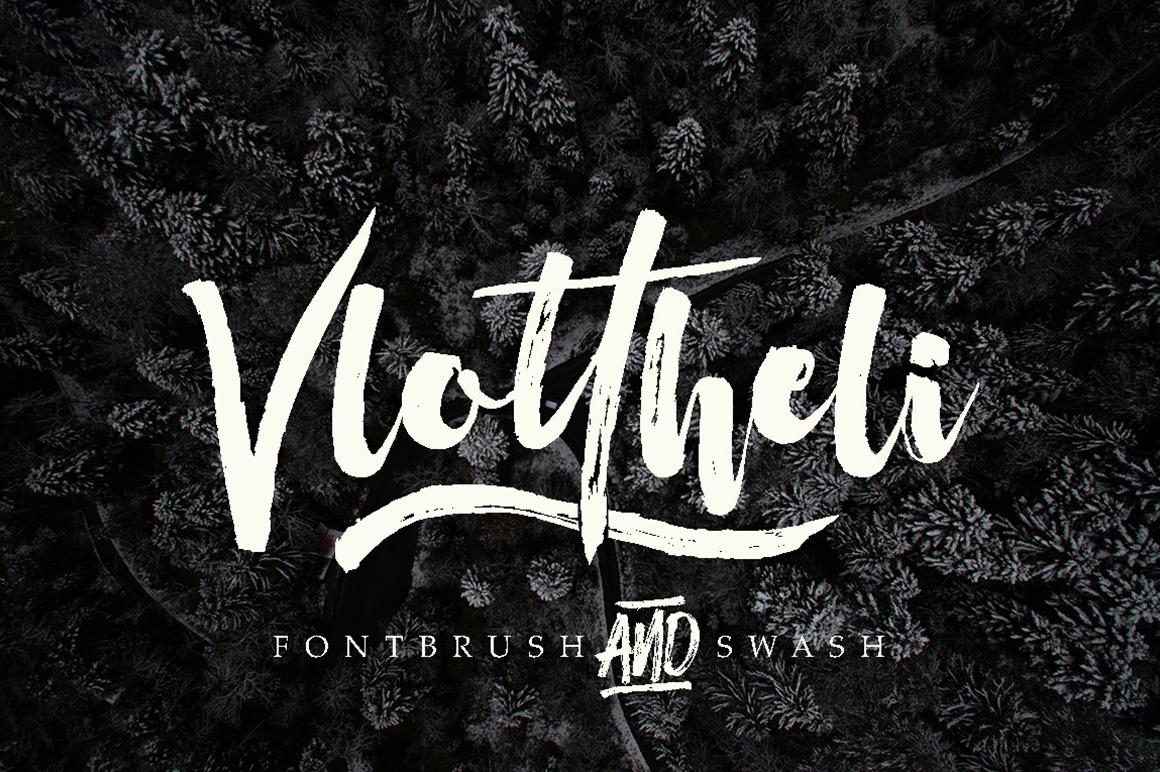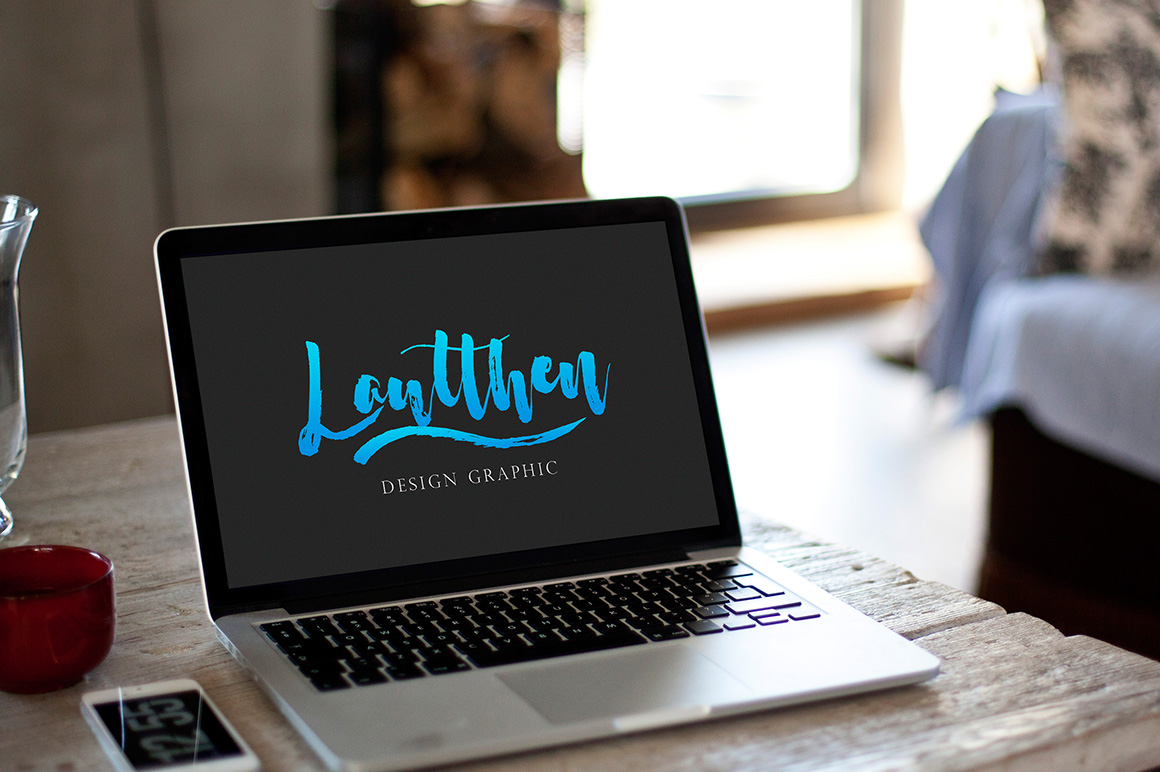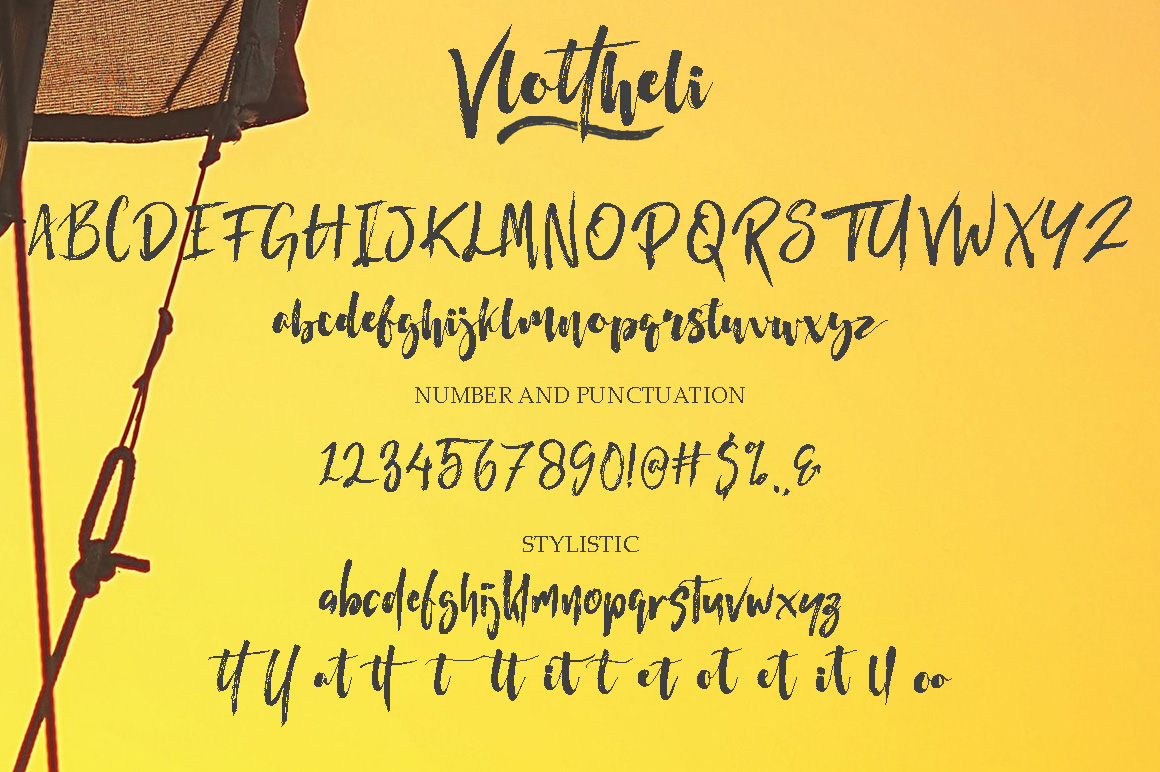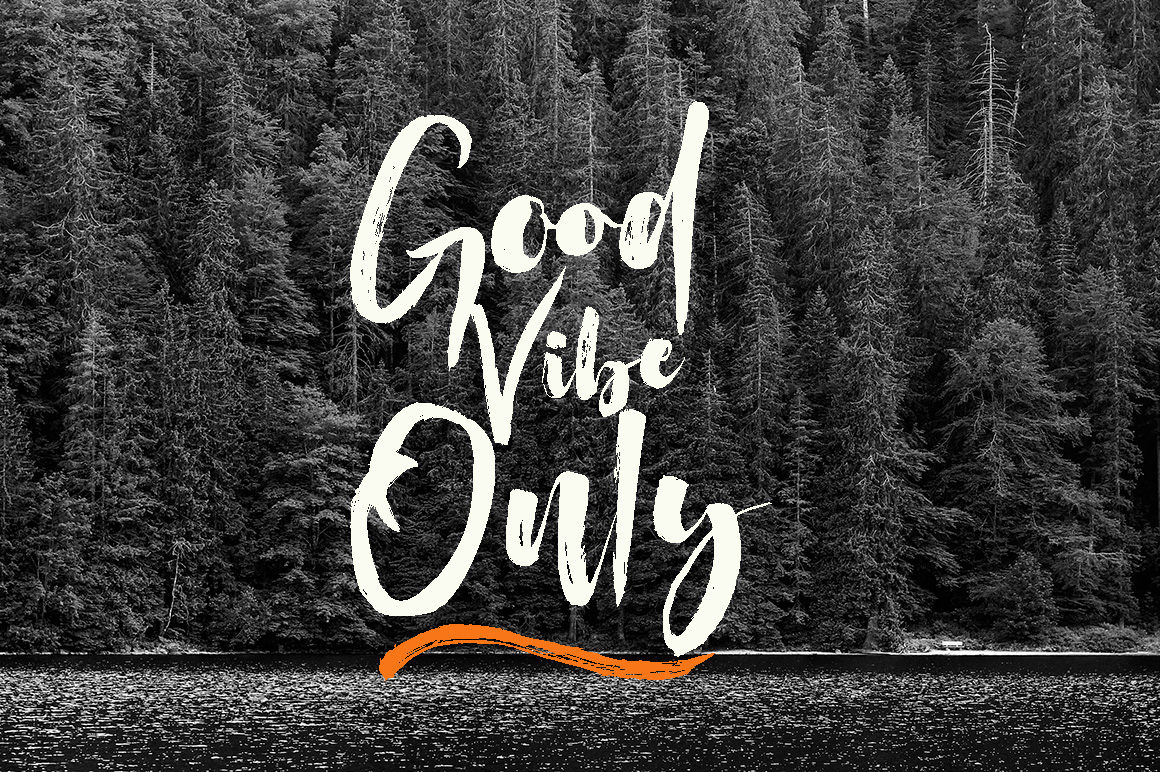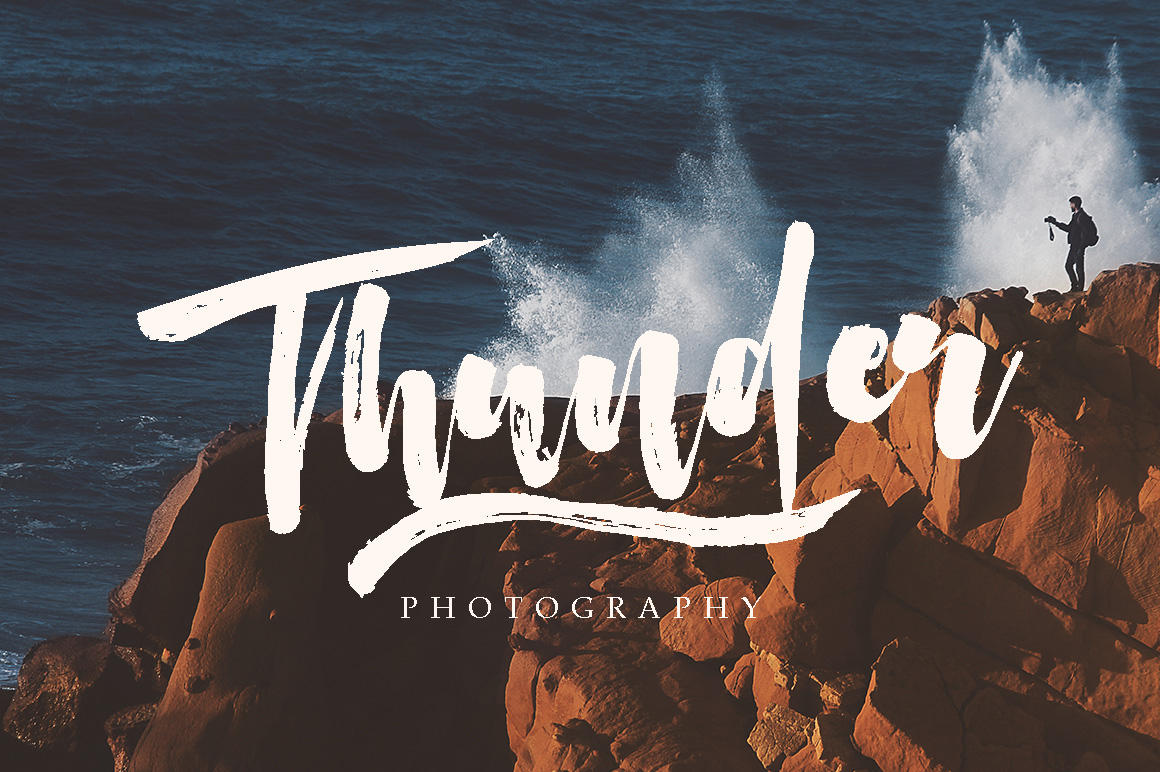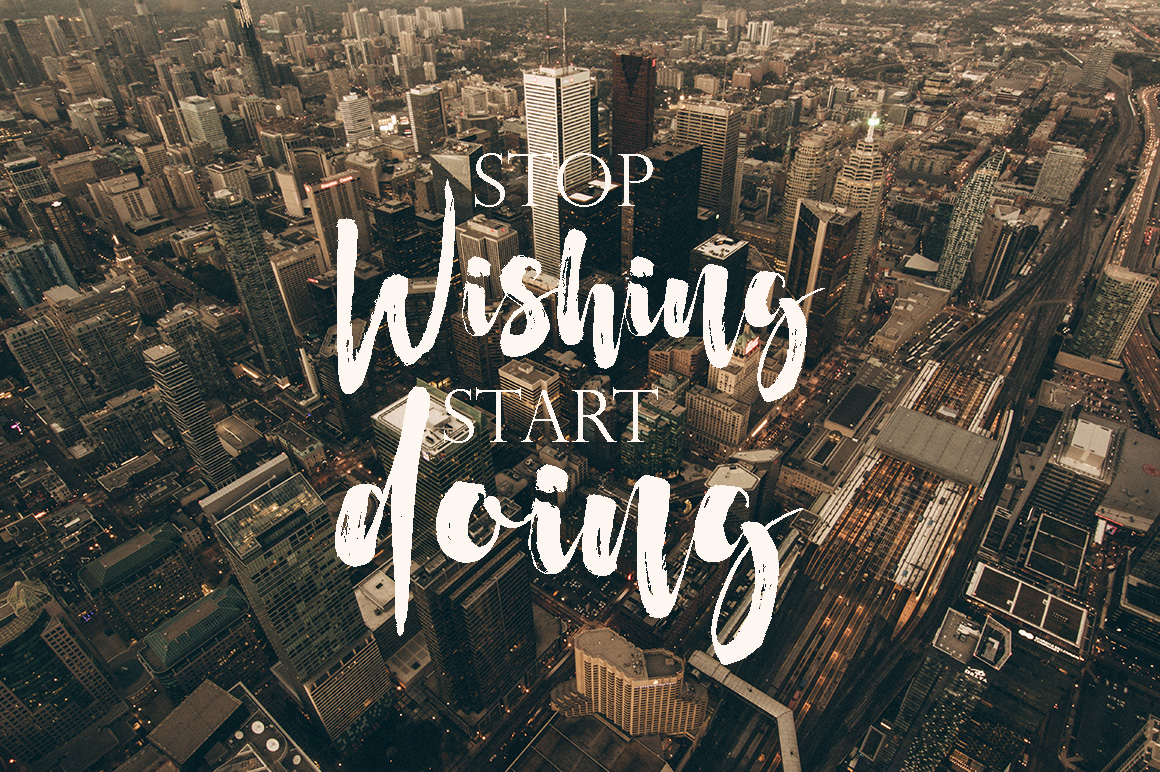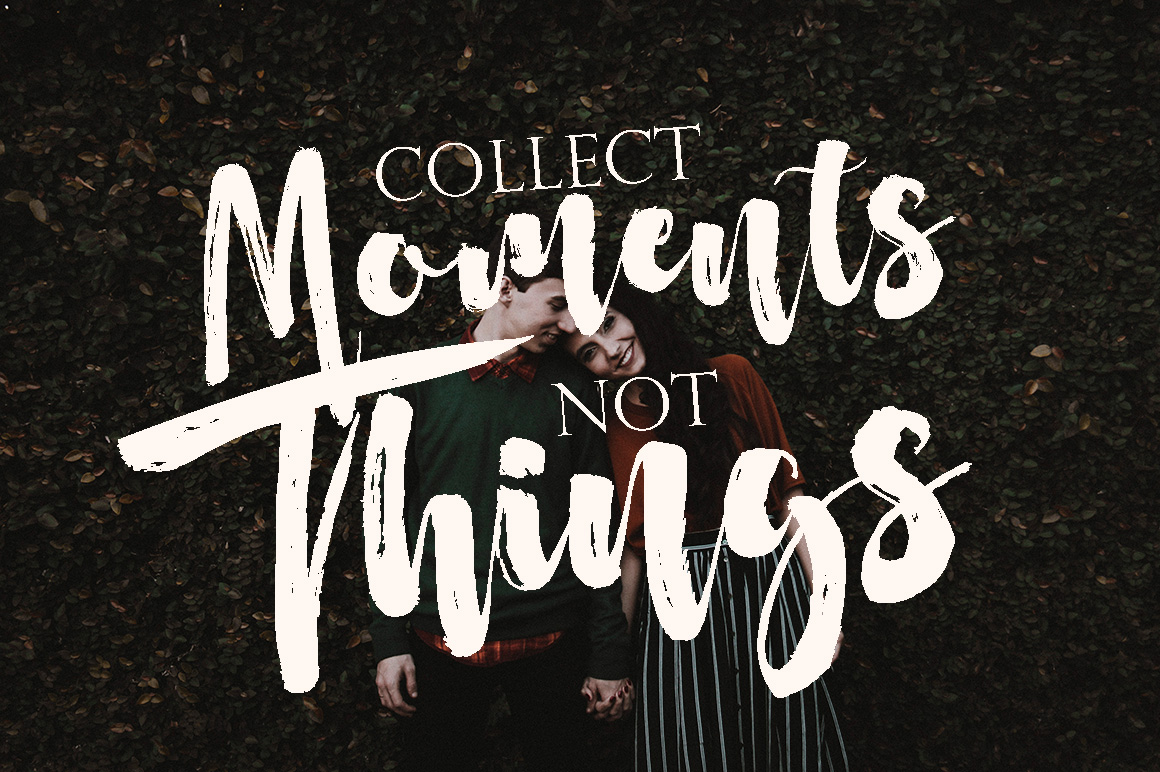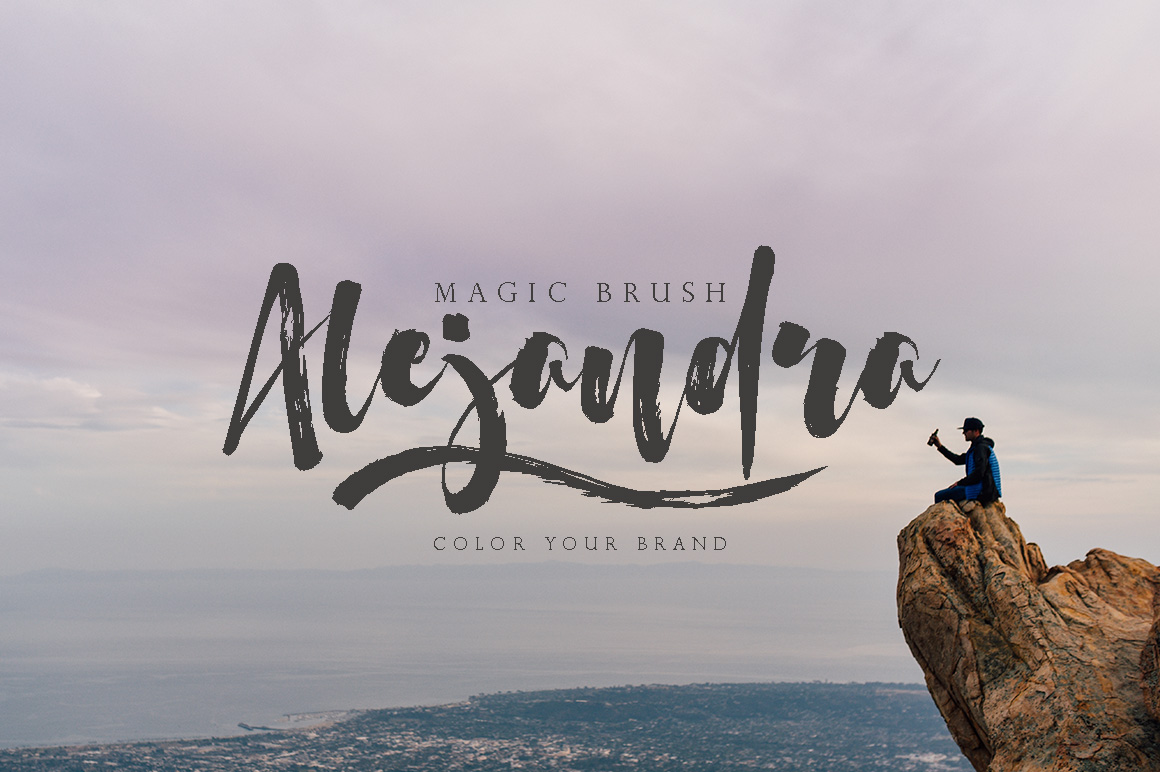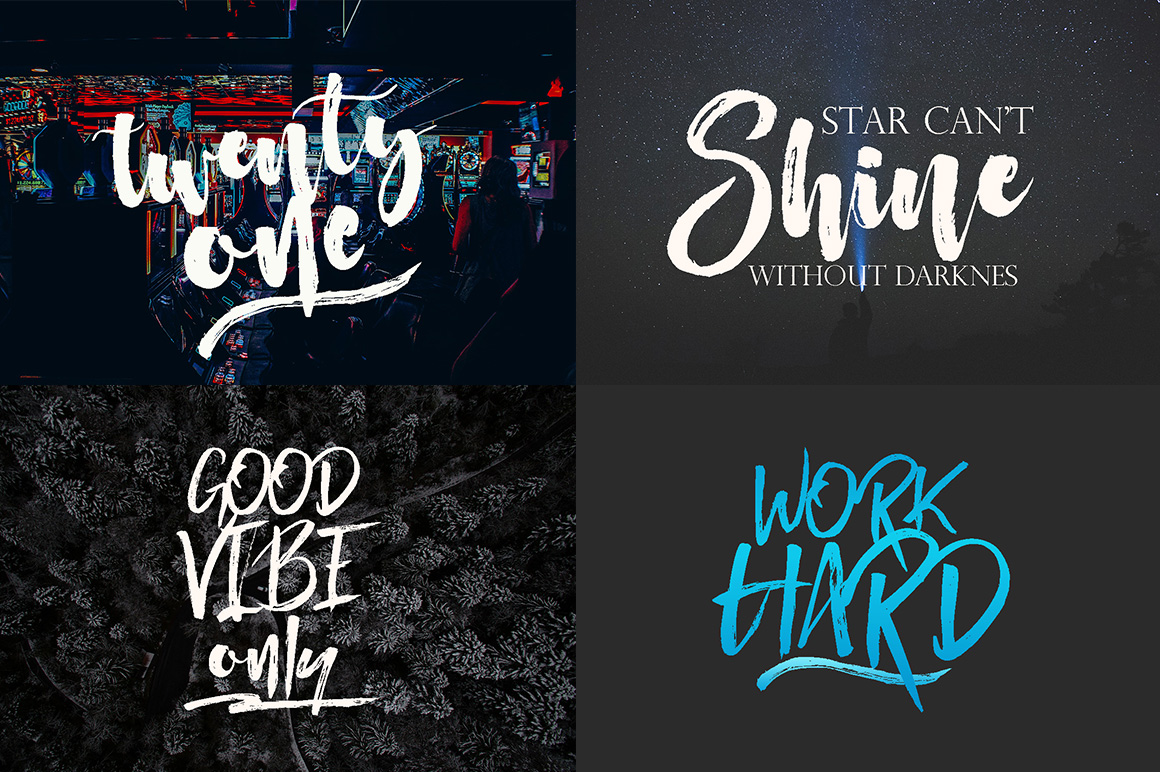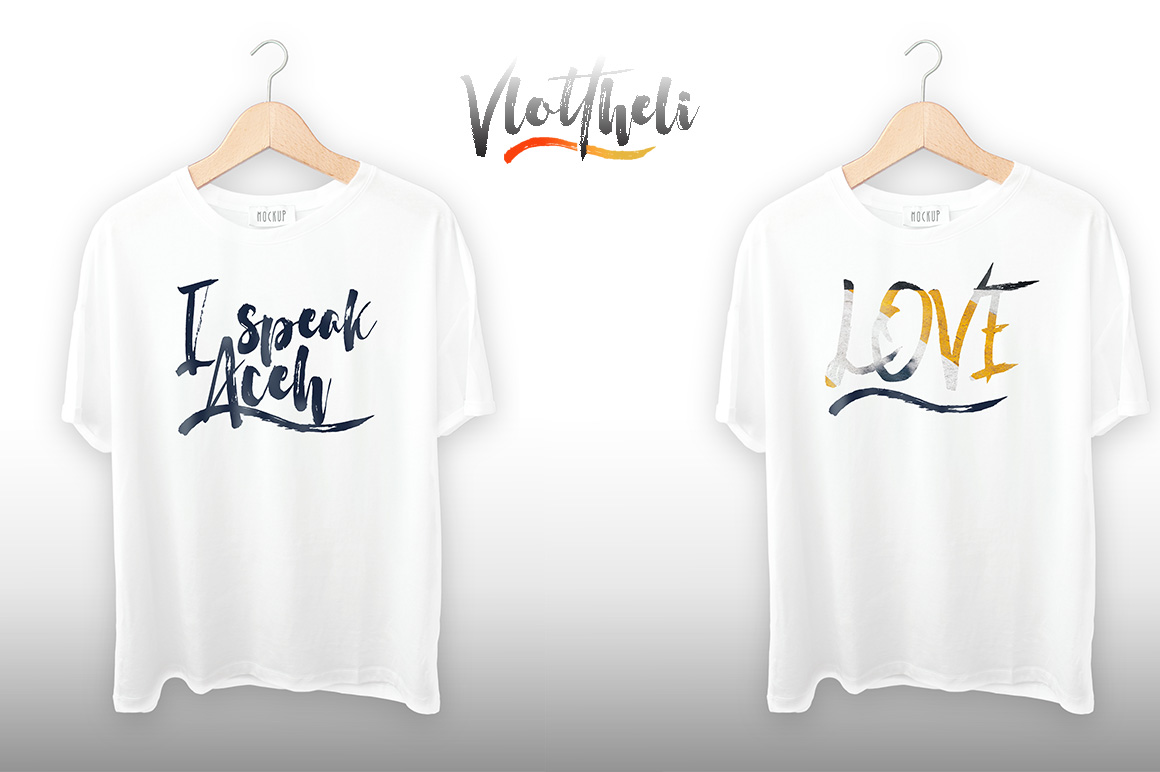
Vlottheli Font
Vlottheli is modern brushfont. With modern script style this font will perfect for many different project ex: quotes, blog header, poster, wedding, branding, logo, fashion, apparel, letter, invitation, stationery, etc.